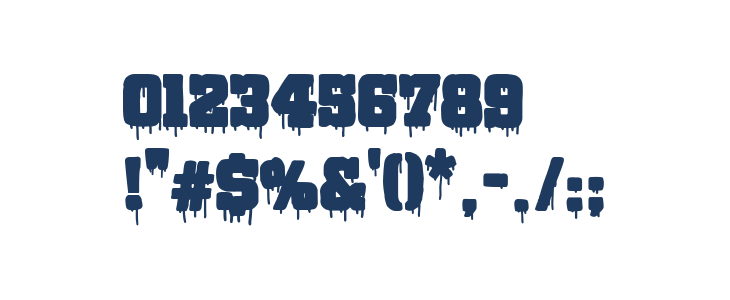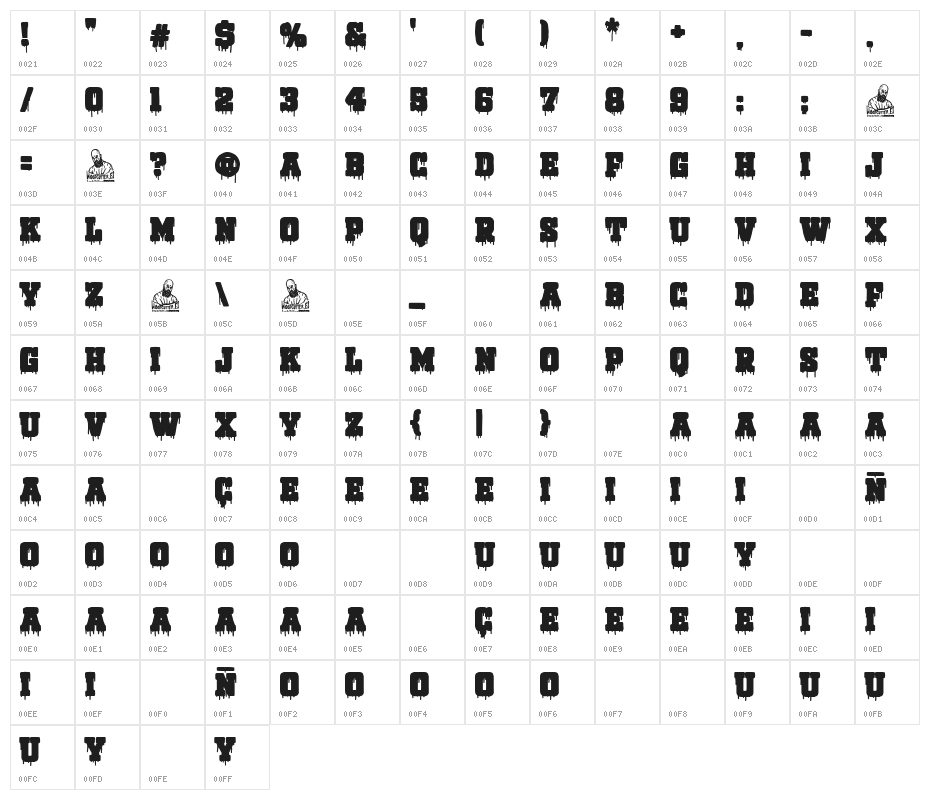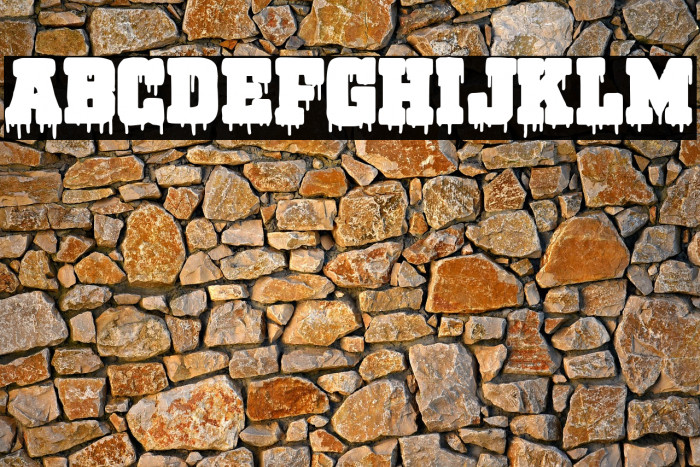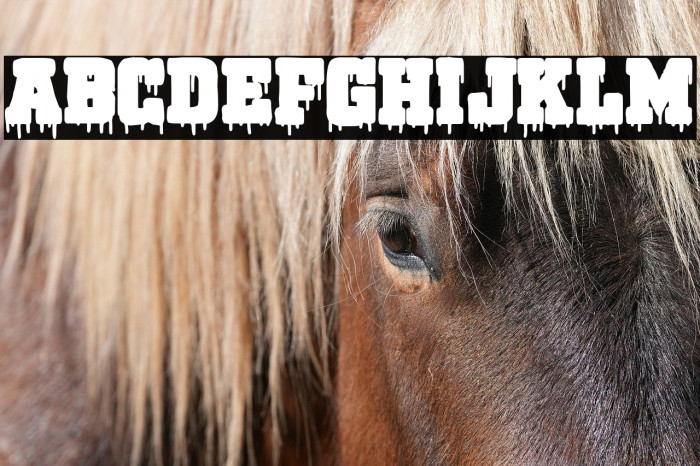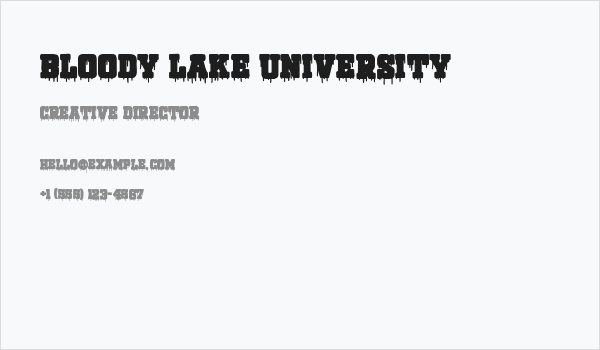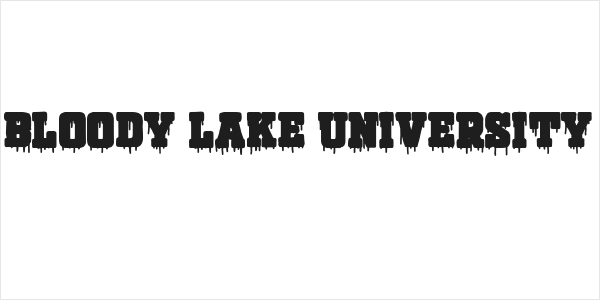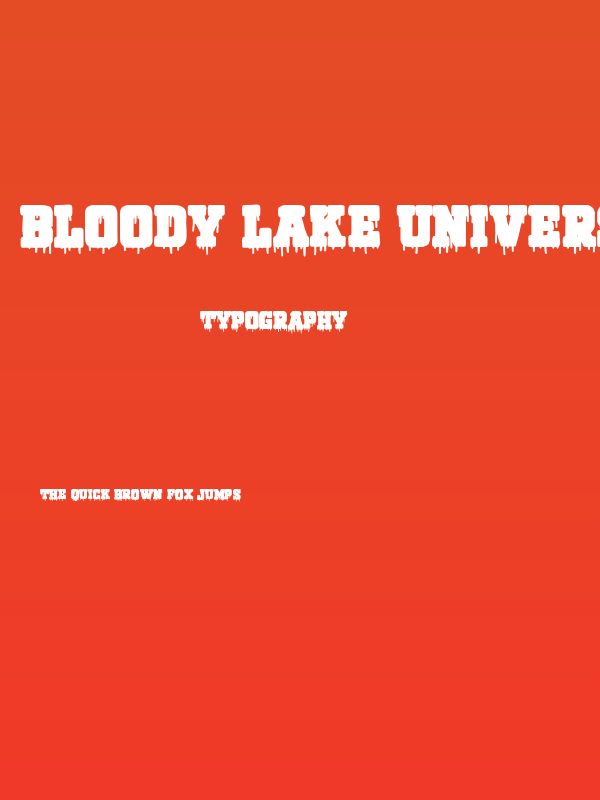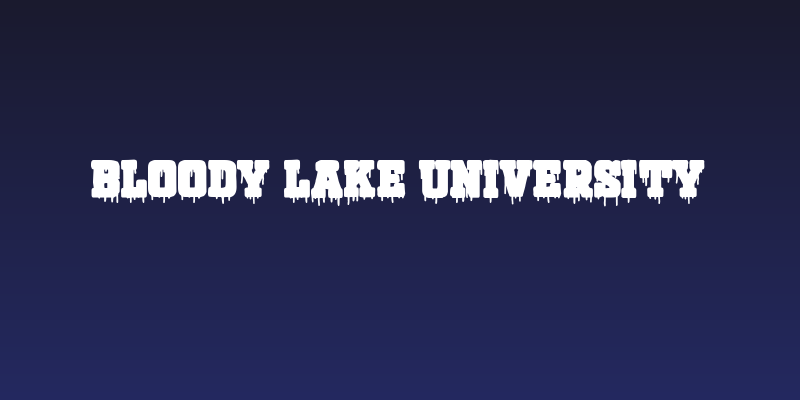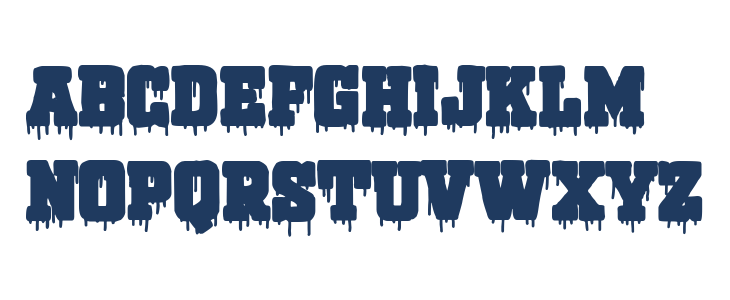
Bloody Lake University Font
Bloody Lake University Description
This font features a bold, dramatic style with a dripping effect that gives it a horror or Halloween-themed appearance. The characters are thick and substantial, with a unique design that mimics the look of liquid or blood dripping from the letters. This effect is consistent across uppercase and lowercase letters, numbers, and special characters, creating a cohesive and striking visual impact. The font's design is highly decorative, making it ideal for thematic projects that require a strong and memorable typeface.
| Proposed Projects | Ideal for Halloween posters, horror movie titles, themed event invitations, and any project requiring a spooky or dramatic flair. |